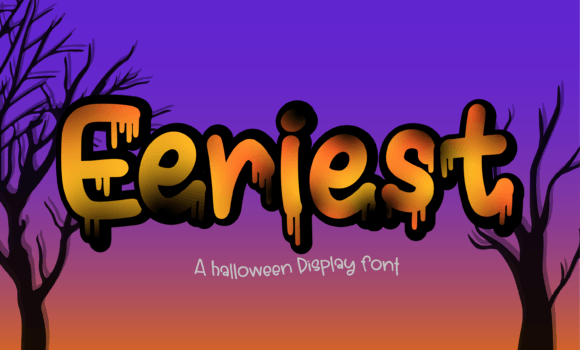
Eeriest Font – Free Download Introduction to Eeriest Font Eeriest is a fun display font, perfect for your favorite projects such as posters, flyers, social media, movie and book titles, invitations, stickers and so much more. 📸 Preview Gallery 5